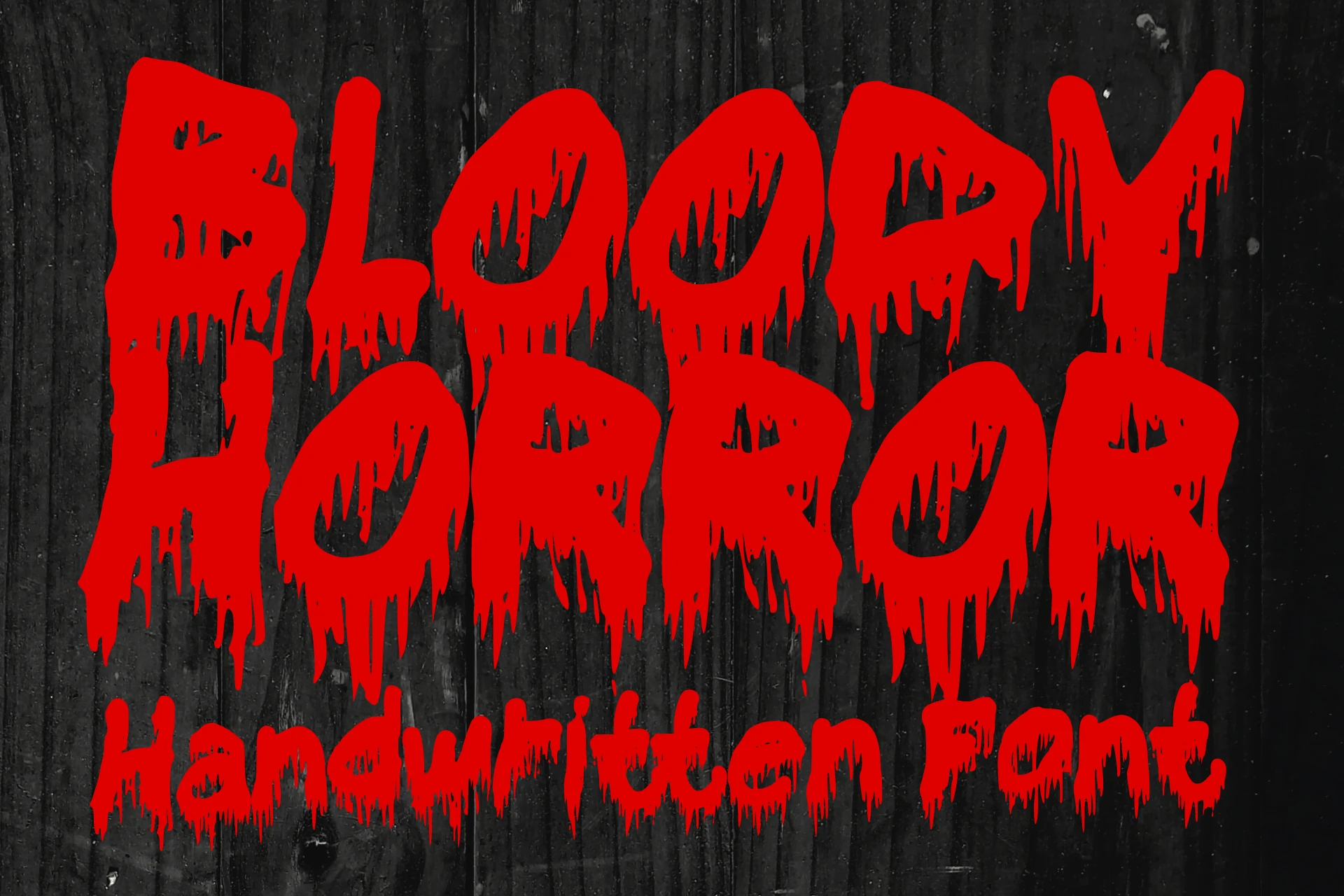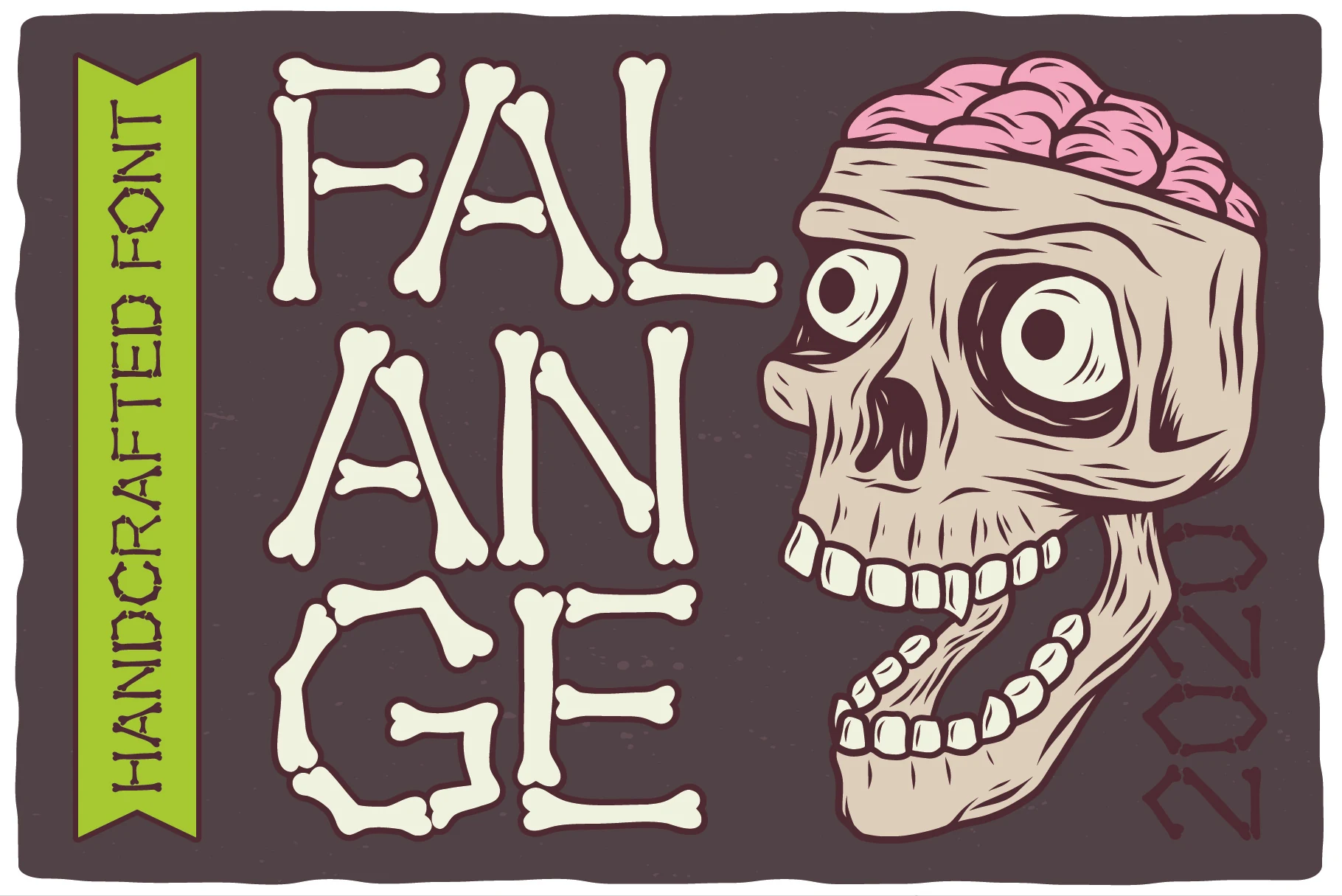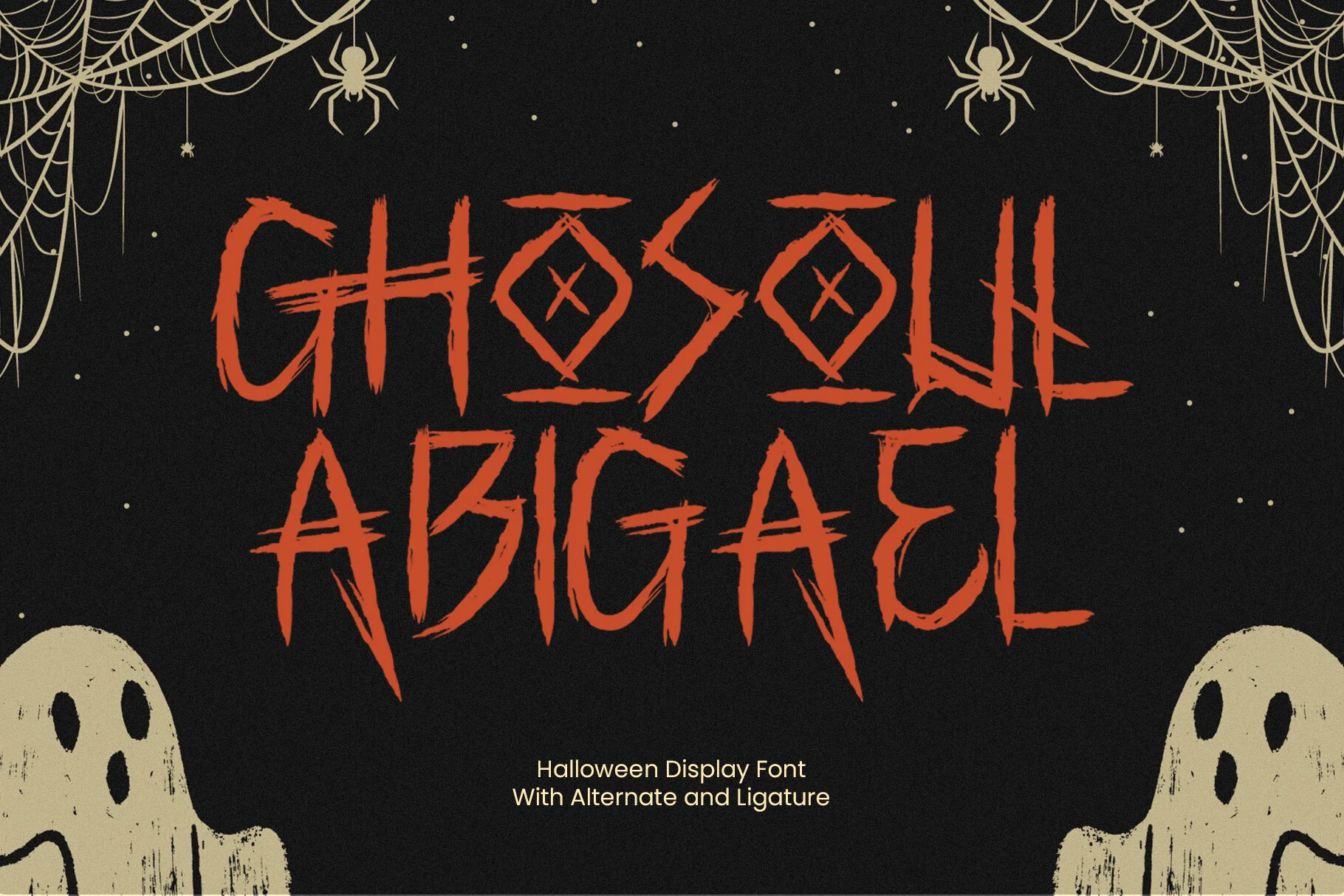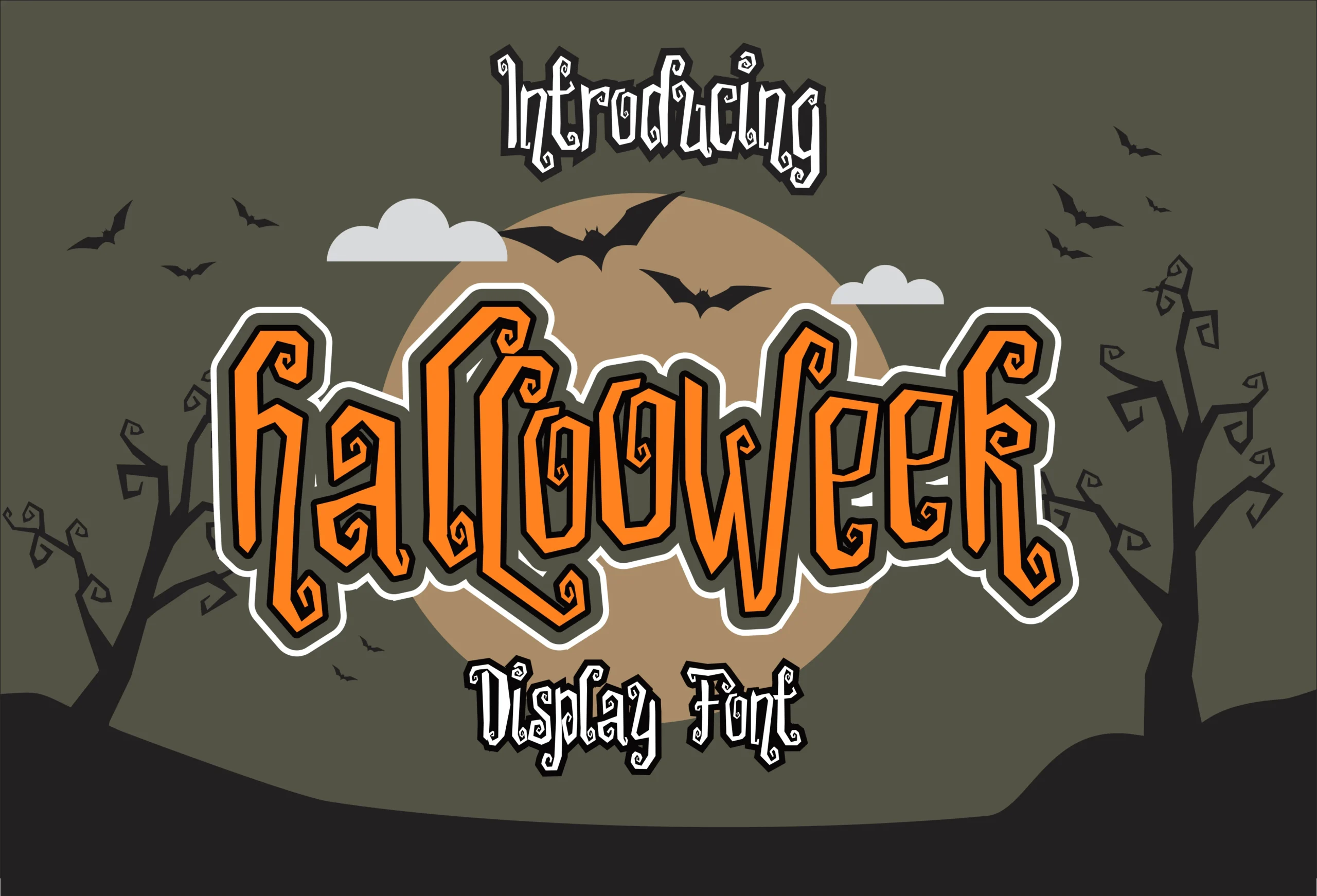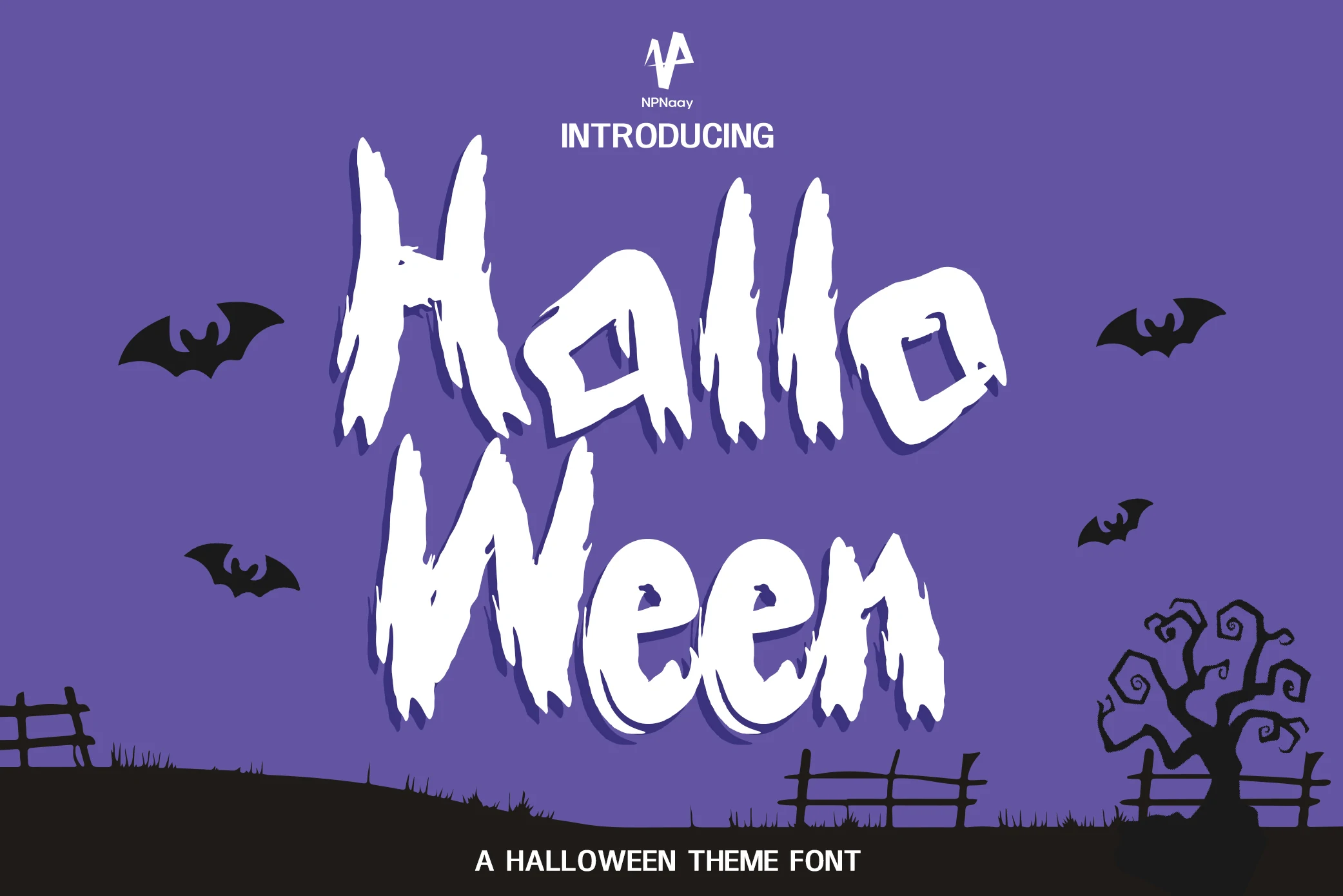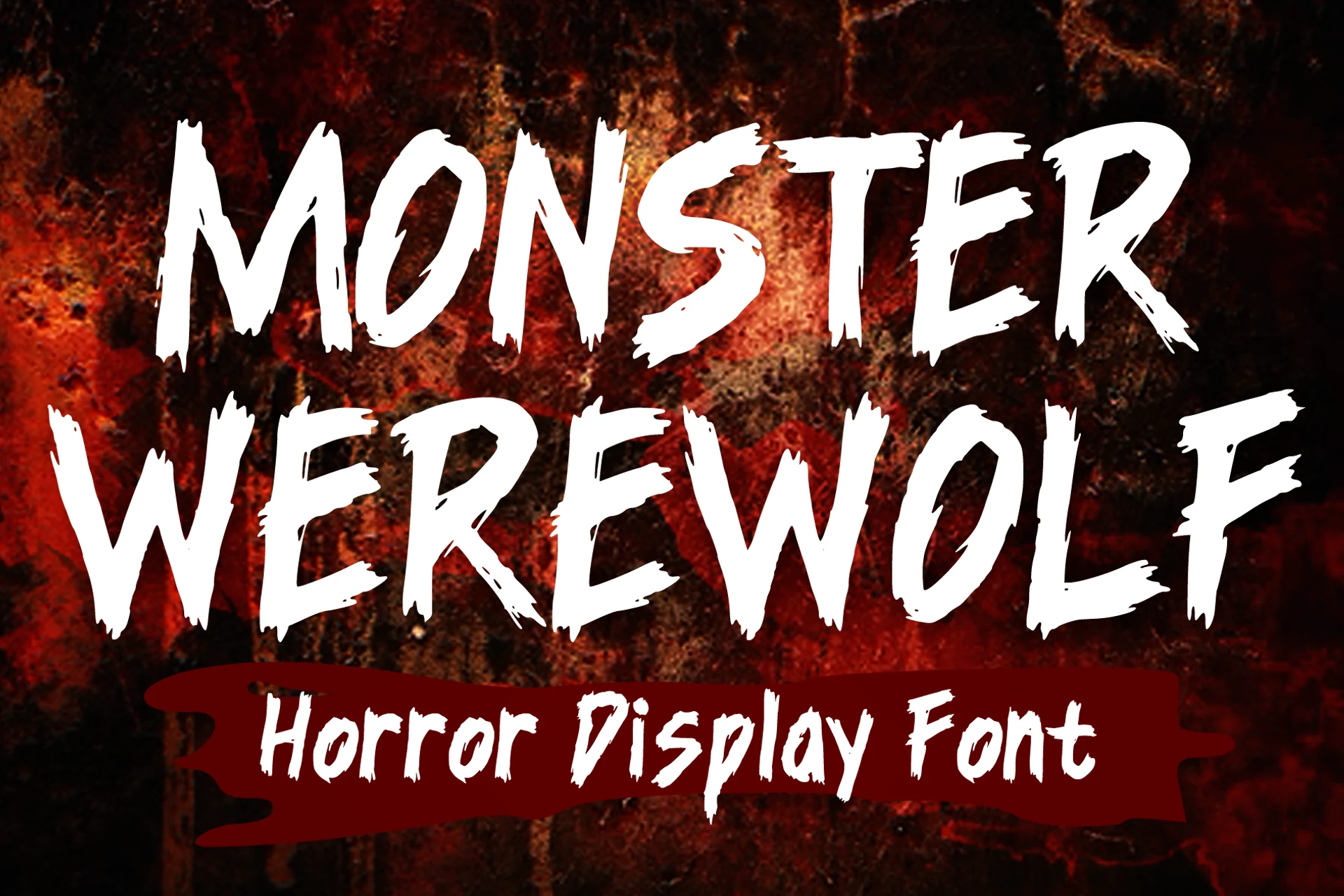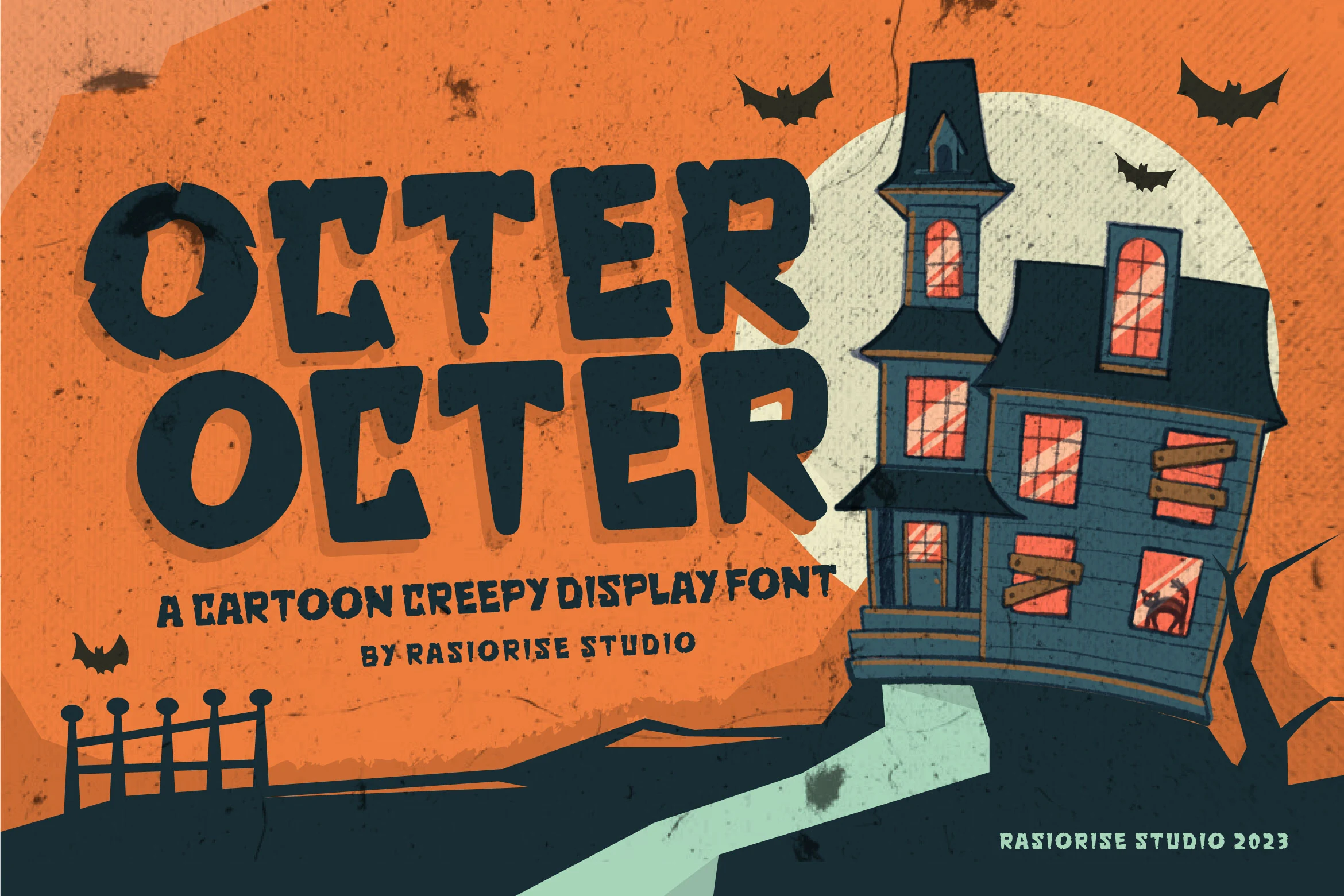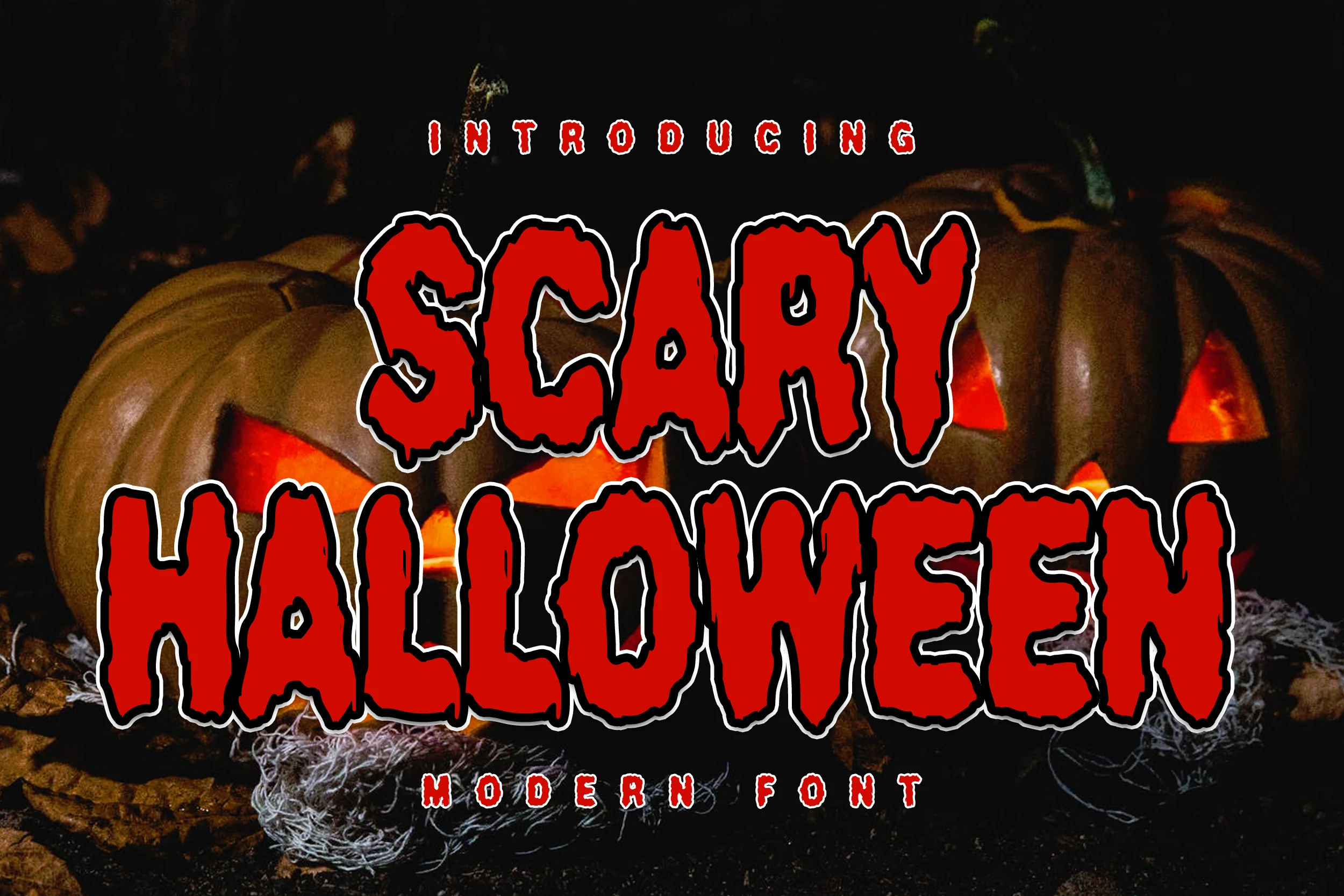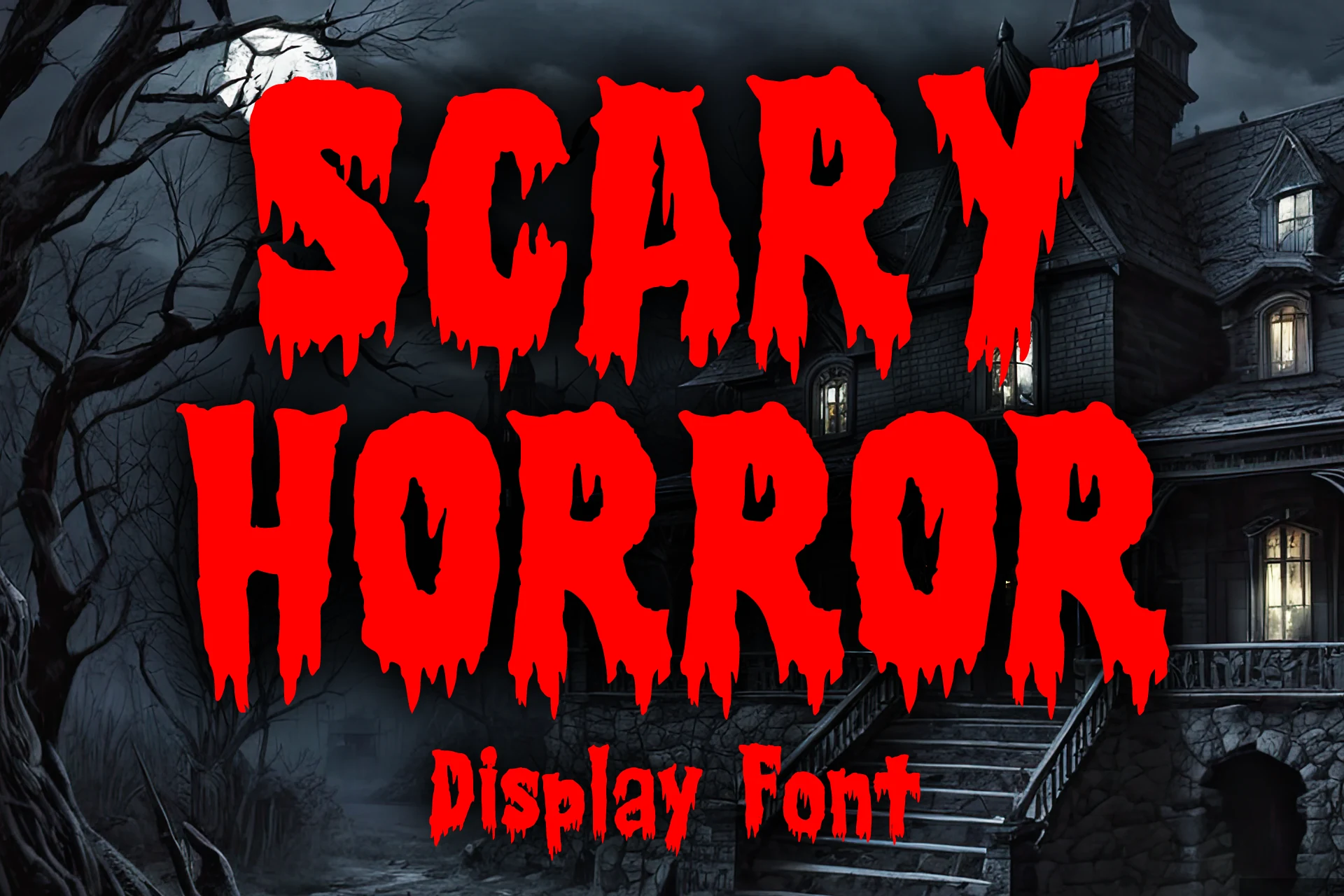
This collection ranges from liquid-dripping capitals and sharp Gothic serifs to skeletal, spider-patterned, and rough hand-drawn displays. These Scary Halloween Fonts are primarily built for posters, merchandise, invitations, logos, social graphics, and other short, high-impact messaging rather than continuous reading.
Scary Halloween Fonts: Dripping and Melting Letterforms
Scary Halloween Fonts: Dripping and Melting Letterforms center on heavy disconnected shapes, irregular baselines, and liquid-like terminals, making them more graphic and theatrical than the sharper distressed groups.
Creepy Halloween Font
Creepy Halloween Font features a heavy dripping display style with ragged outlines and integrated spooky silhouettes.
Creepy Halloween Font combines heavy disconnected capitals with ragged dripping edges and illustrative elements embedded inside the letterforms. It gives Scary Halloween Fonts a built-in graphic role, so it suits oversized posters and headlines better than small wording.
Scary Halloween 2022 Font
Scary Halloween 2022 Font features heavy, jagged letterforms with embedded Halloween silhouettes and uneven baselines.
Scary Halloween 2022 Font places Halloween silhouettes inside irregular characters, with uneven sizing and baseline alignment making each character feel partly illustrative. That visual density is effective on packaging, billboards, and apparel, but not dense copy.
Haunted Halloween Font
Haunted Halloween Font with heavy block letters, dripping lower edges, and a skull replacing the letter O.
Haunted Halloween Font gives Scary Halloween Fonts a clear signature by replacing the O with a skull. Its blocky heavy letters and melting lower edges make short headlines memorable, though paragraphs quickly lose clarity.
Scary Halloween Font
Scary Halloween Font with bold, upright all-caps letters, jagged dripping edges, and disconnected letterforms.
Scary Halloween Font uses bold disconnected capitals with irregular dripping terminals and a simple heavy structure. It creates strong recognition in large titles and stickers, but the decorative edges make extended reading an unsuitable role.
Dripping Season Font
Dripping Season Font is a bold uppercase display font with irregular organic edges and melting, dripping terminals.
Dripping Season Font gives Scary Halloween Fonts a bold melting treatment, with uppercase letters extending into liquid-like terminals. Its heavy mass holds up on posters and stickers, while the organic edges rule it out for body copy.
Bloody Horror Font
Bloody Horror Font features heavy, irregular handwritten lettering with disconnected forms and dripping terminals.
Bloody Horror Font combines ink-made disconnected forms, heavy strokes, and uneven dripping terminals. It is a strong choice when Scary Halloween Fonts need short, bold wording for clothing, book covers, posters, or party materials.
Scary Horror Font
Scary Horror Font with heavy condensed letters, dripping terminals, and distressed irregular edges.
Scary Horror Font gives Scary Halloween Fonts extreme ink-drip terminals on condensed heavy forms with a stable baseline. Its vintage horror-comic and metal associations suit merchandise, but the drips compromise character clarity in smaller titles.
Melted Brain Font
Melted Brain Font is a bold display font with heavy letters, dripping edges, and a melting effect.
Melted Brain Font gives Scary Halloween Fonts a flexible layered system: Base, Outline, and Shadow versions can be stacked for poster compositions. Its melting terminals remain powerful at display size but are unsuitable for body text.
Vampire Gothic Font
Vampire Gothic Font with jagged, dripping letterforms, pointed terminals, and distressed vertical strokes.
Vampire Gothic Font combines sharp pointed terminals, distressed vertical strokes, and dripping edges for a theatrical silhouette. High contrast adds drama to covers and posters, but the competing details reduce legibility in compact settings.
Jagged, Gothic, and Distressed Horror
These jagged, Gothic, and distressed designs rely on pointed serifs, slashes, erosion, scratches, or high contrast. Their structured silhouettes differ from dripping styles through sharper edges and stronger poster-serif construction.
Killer Bloods Font by Dreamink 7ntypes Font
Killer Bloods Font by Dreamink 7ntypes Font is a horror display typeface with pointed blade-like serifs, high-contrast strokes, and irregular hand-drawn edges.
Killer Bloods Font by Dreamink 7ntypes Font uses tall, slightly condensed proportions, blade-like serifs, and sharp thick-thin contrast. The aggressive profile fits narrow poster headlines, although its fine points and uneven edges need generous display sizing.
How to Choose the Right Font
Choose Scary Halloween Fonts by matching construction to scale and message length. Drips, embedded icons, bones, and web patterns need oversized treatment; condensed serifs help narrow titles; stable baselines improve control; and heavier, less textured options offer better readability. Reserve the most irregular designs for short headlines, logos, stickers, and merchandise.